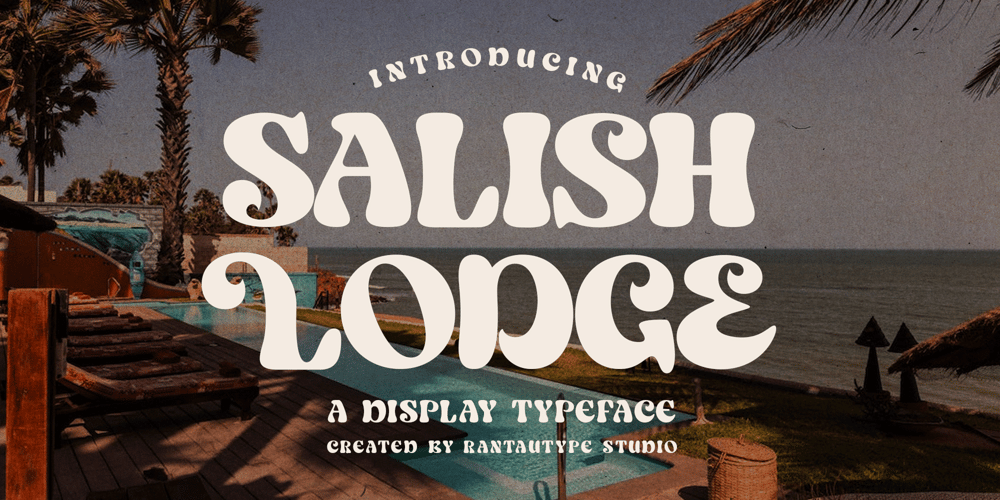
Salish Lodge Font Family was designed by Yudi Pratama Chandra and published by RantauType. Salish Lodge contains 2 styles and family package options. Salish Lodge is a display font that soft bold curve make it look Unique, fun, modern, and versatile serif Font. Come with more alternate and ligature you can mix to create a more stunning display. Salish Lodge come with multilingual accent support.Salish Lodge separate in reguler and italic, is a beautiful choice for any creative endeavor, creating fun, modern, chic, lifestyle design such as logos, title, cover, branding, display and magazine, and more. Now you have can choice Salish Lodge to elevate you desaign or branding.Features: Standar character A-Z and a-z Numberial and Functional Alternate and Ligature Works on PC & Mac Simple installations Accessible in Adobe Illustrator, Adobe Photoshop, Adobe InDesign, even work on Microsoft Word. PUA Encoded Characters – Fully accessible without additional design software. Fonts include Multilingual Support for: Afrikaans, Albanian, Asu, Basque, Bemba, Bena, Breton, Chiga, Cornish, Dutch, English, Estonian, Filipino, Finnish, Friulian, Galician, Gusii, Indonesian, Irish, Italian, Kabuverdianu, Kalenjin, Kinyarwanda, Luo, Luxembourgish, Luyia, Machame, Makhuwa-Meetto, Makonde, Malagasy, Manx, Morisyen, North, Ndebele, Nyankole, Oromo, Portuguese, Quechua, Romansh, Rombo, Rundi, Rwa, Samburu, Sango, Sangu, Scottish, Gaelic, Sena, Shambala, Shona, Soga, Somali, Spanish, Swahili, Swedish, Swiss, German.Thank you for your purchase!Hope you enjoy with our font!